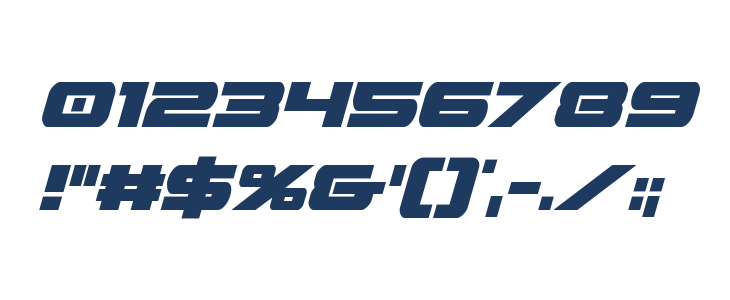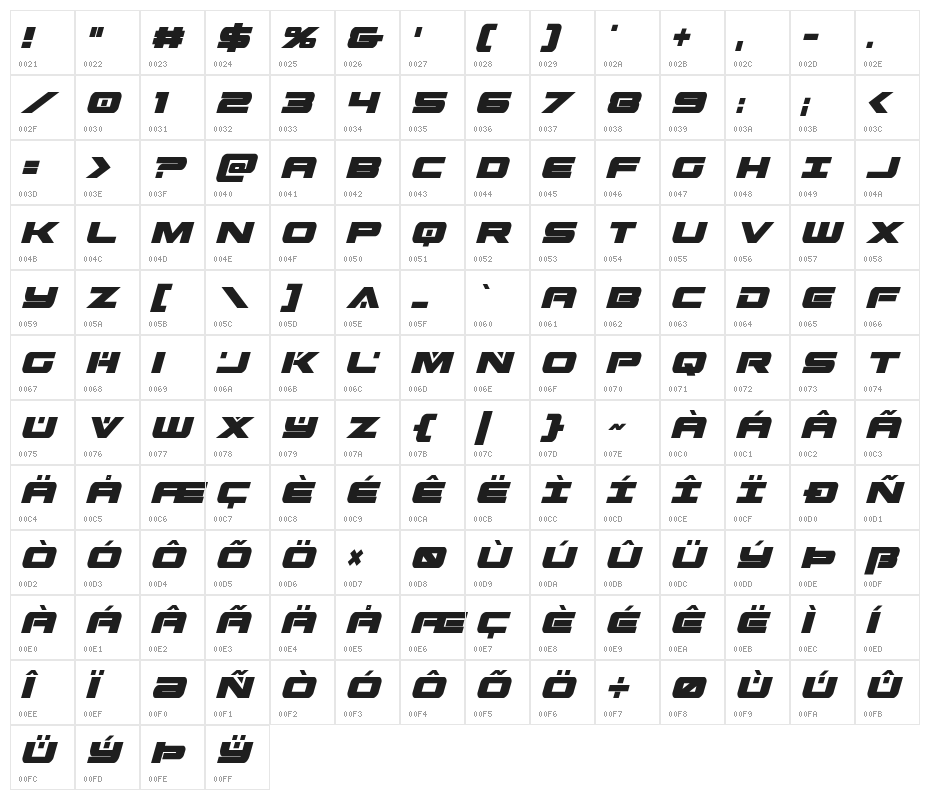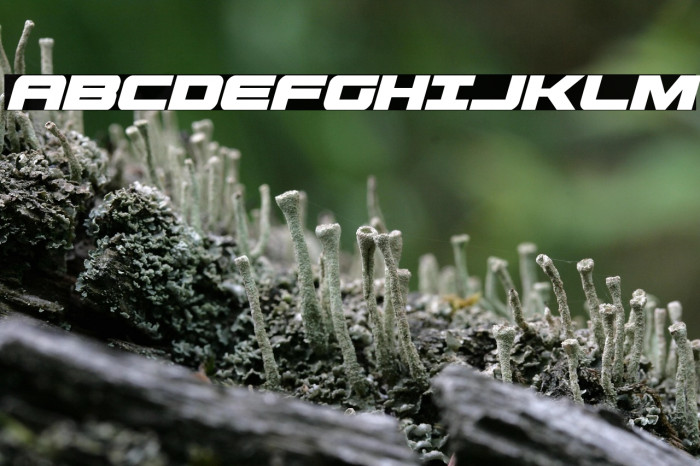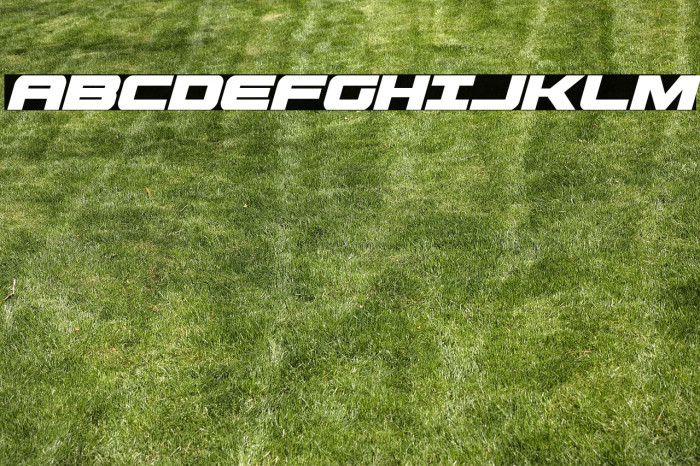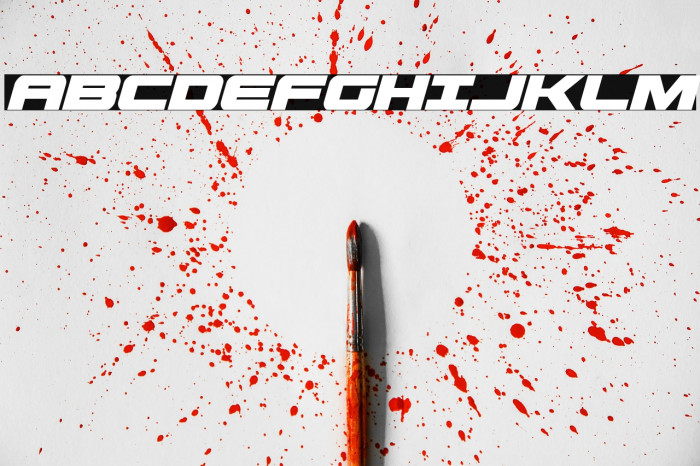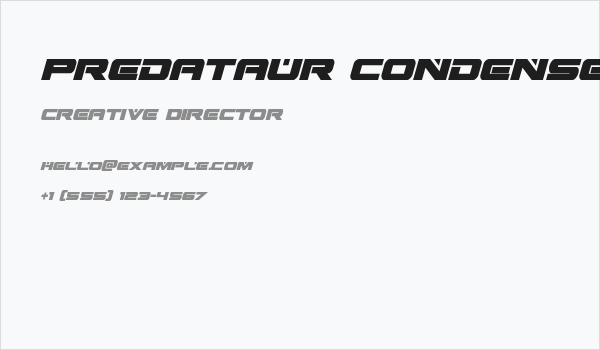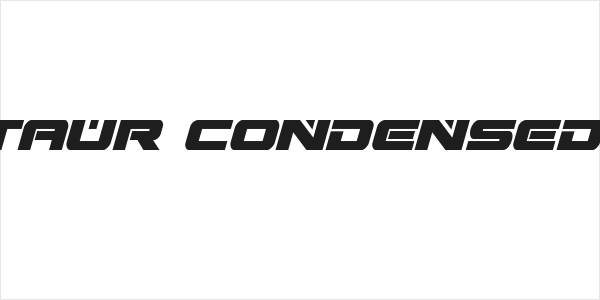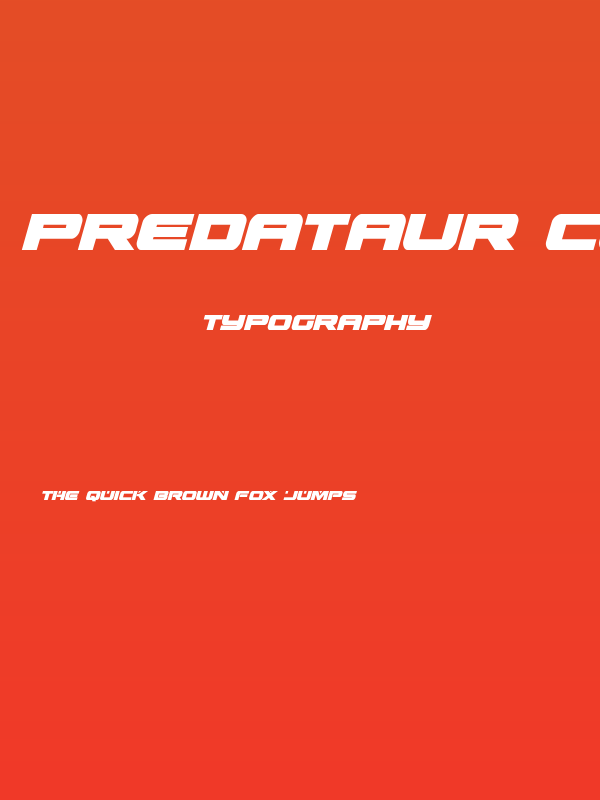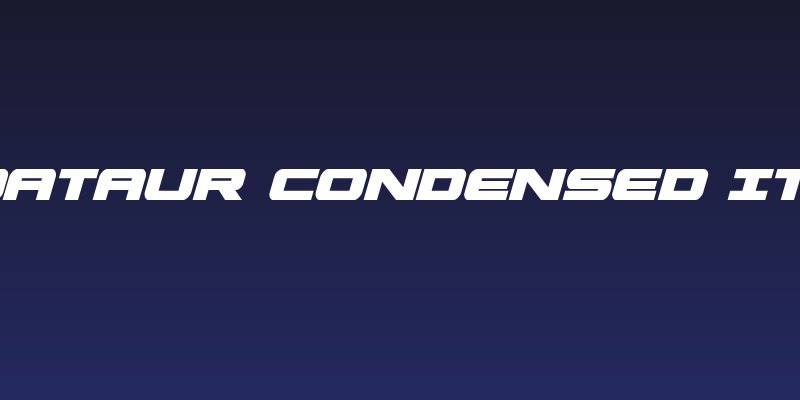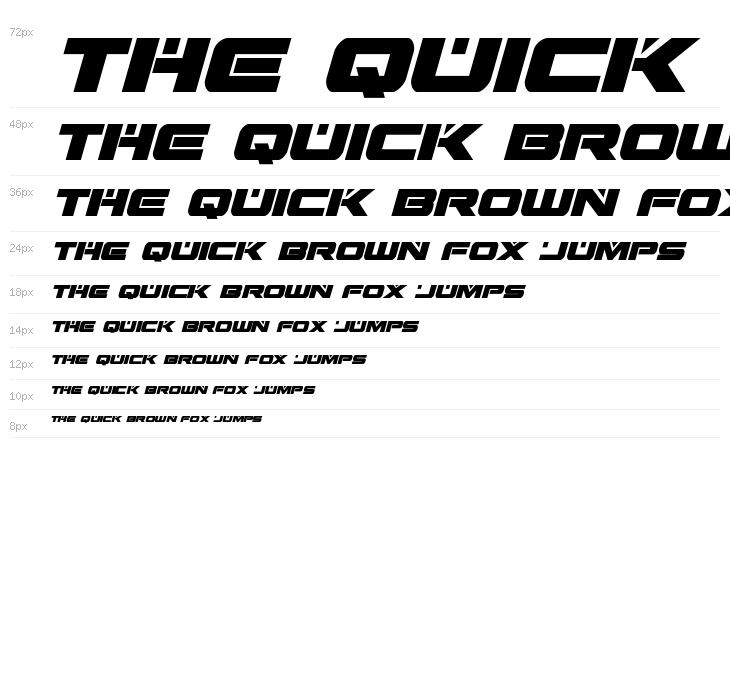
Predataur Condensed Italic Font
Predataur Condensed Italic Description
This font features a bold, italicized style with a futuristic and dynamic appearance. The characters are condensed, giving them a compact look, while maintaining a sense of movement and speed. The angular cuts and sharp edges contribute to its modern and edgy aesthetic. The uppercase and lowercase letters are consistent in style, with a slight slant that enhances the italic effect. Numbers and special characters are designed to match the overall theme, ensuring uniformity across all glyphs. This font is ideal for projects that require a strong, impactful visual presence.